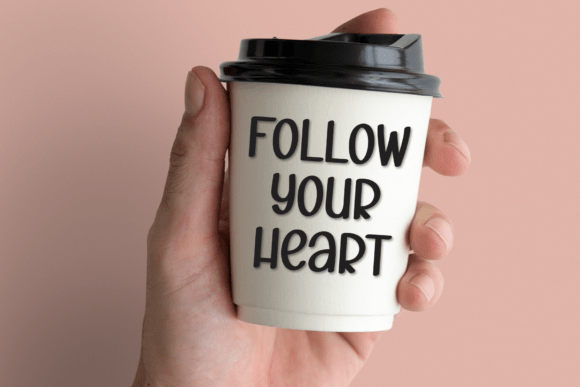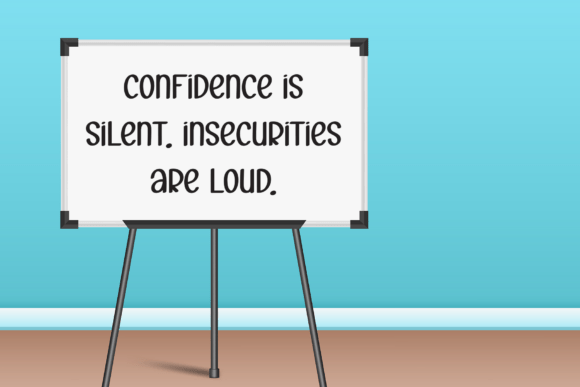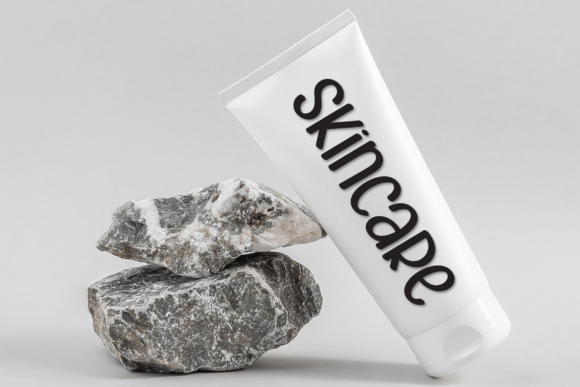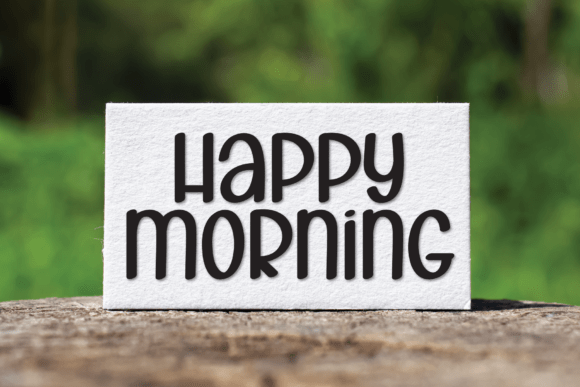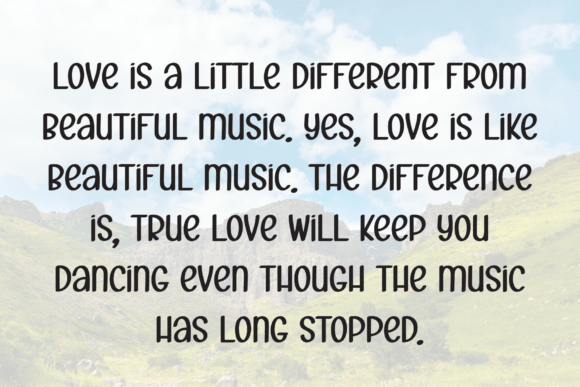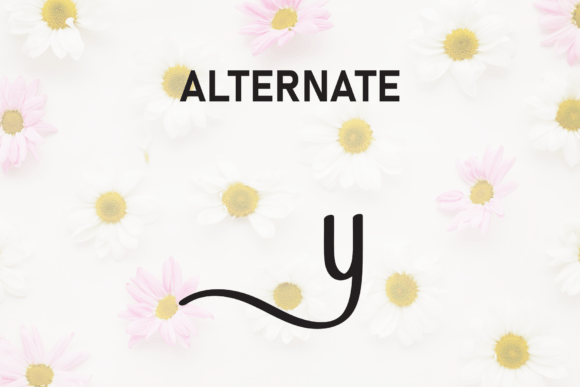
The Joy of Daisy Font: A Playful Companion for Your Design Projects
I still remember the time I was working on a project for a children’s birthday party, and I was struggling to find the perfect font to match the cheerful and playful vibe of the design. The client wanted something that would make the kids (and their parents!) smile, but everything I tried seemed either too boring or too over-the-top. That’s when I stumbled upon Daisy Font – a delightful, handmade font that instantly brought warmth and friendliness to my design.
An Honest Review of Daisy Font
What I Love About Daisy Font ✨
- ✨ Rounded, clean strokes that give it a smooth, approachable feel
- ✅ Cheerful personality that instantly brightens up any design
- 🤩 Casual charm that’s perfect for greeting cards, kids’ designs, product packaging, logos, and cheerful branding
- 💻 PUA encoding ensures that all stylistic features and extras can be used with just a few clicks
While Daisy Font is an amazing addition to any design project, there are a few things to keep in mind:
- ⚠️ Legibility at small sizes: While Daisy Font is beautiful at larger sizes, it can become a bit tricky to read at very small sizes (e.g., 8-10pt). Make sure to test it at different sizes to ensure it works for your project.
- 🤔 Overuse of stylistic features: With so many fun stylistic features and alternates, it’s easy to get carried away. Remember to use them sparingly to avoid overwhelming your design.
The Backstory of Daisy Font
Daisy Font was designed with the intention of creating a friendly, approachable font that would bring joy to anyone who used it. The designer, inspired by the simple beauty of hand-drawn letters, aimed to create a font that would feel like a warm hug. With its rounded strokes and cheerful personality, Daisy Font is the perfect companion for any design project that needs a sunny touch.
Q: What is PUA encoding, and how does it benefit me?
PUA (Private Use Area) encoding allows font designers to include additional characters, such as stylistic features and alternates, that can be accessed easily. With PUA encoding, you can use these features with just a few clicks, making it easier to customize your designs.
Q: Is Daisy Font suitable for body text?
While Daisy Font is beautiful, it’s primarily designed for display purposes. For body text, you may want to choose a font with better legibility at smaller sizes.